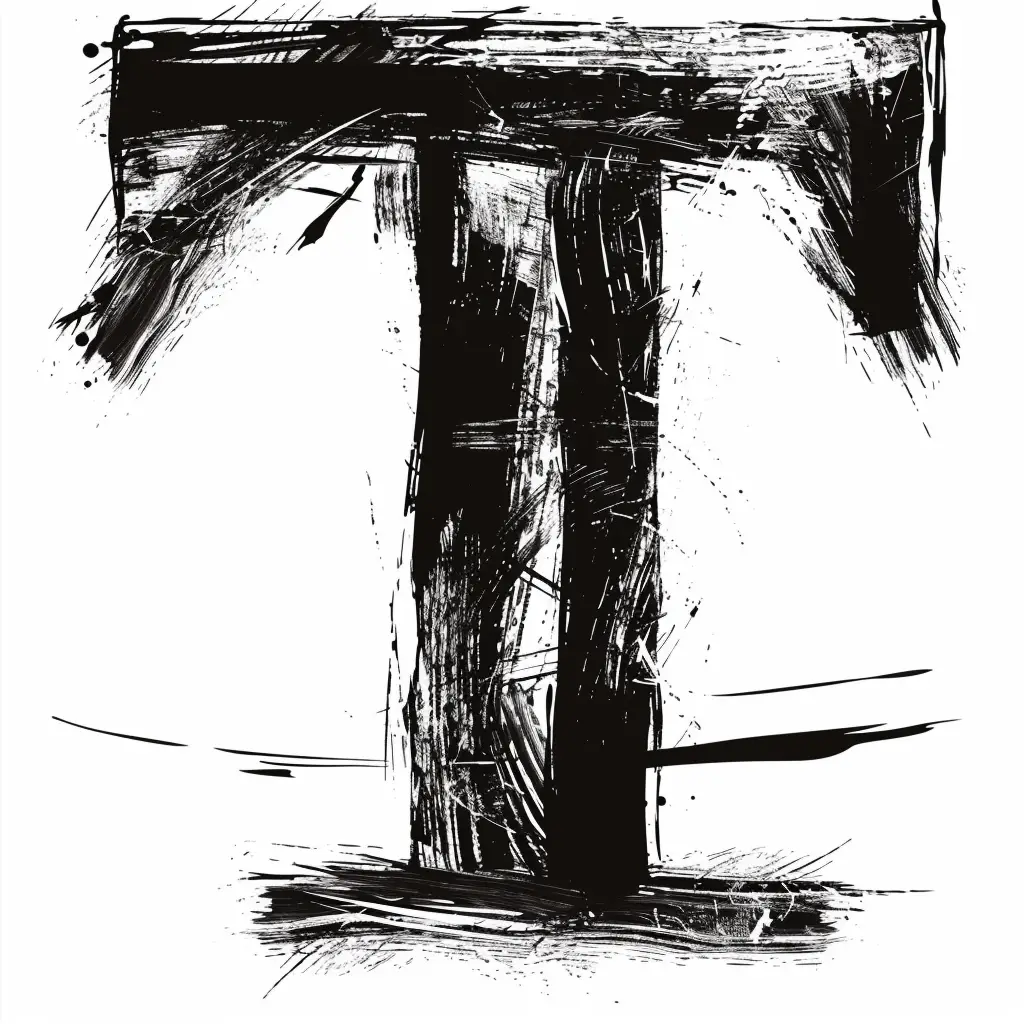
This image features a stylized, abstract representation of the letter "T" rendered in a bold, black-and-white brushstroke style. The design uses rough, textured brushstrokes and splatters, creating a dynamic, artistic effect with high contrast between the dark, expressive strokes and the light background. The composition emphasizes the letter’s form through chaotic, energetic lines and varying thicknesses, giving it a raw, hand-drawn aesthetic.